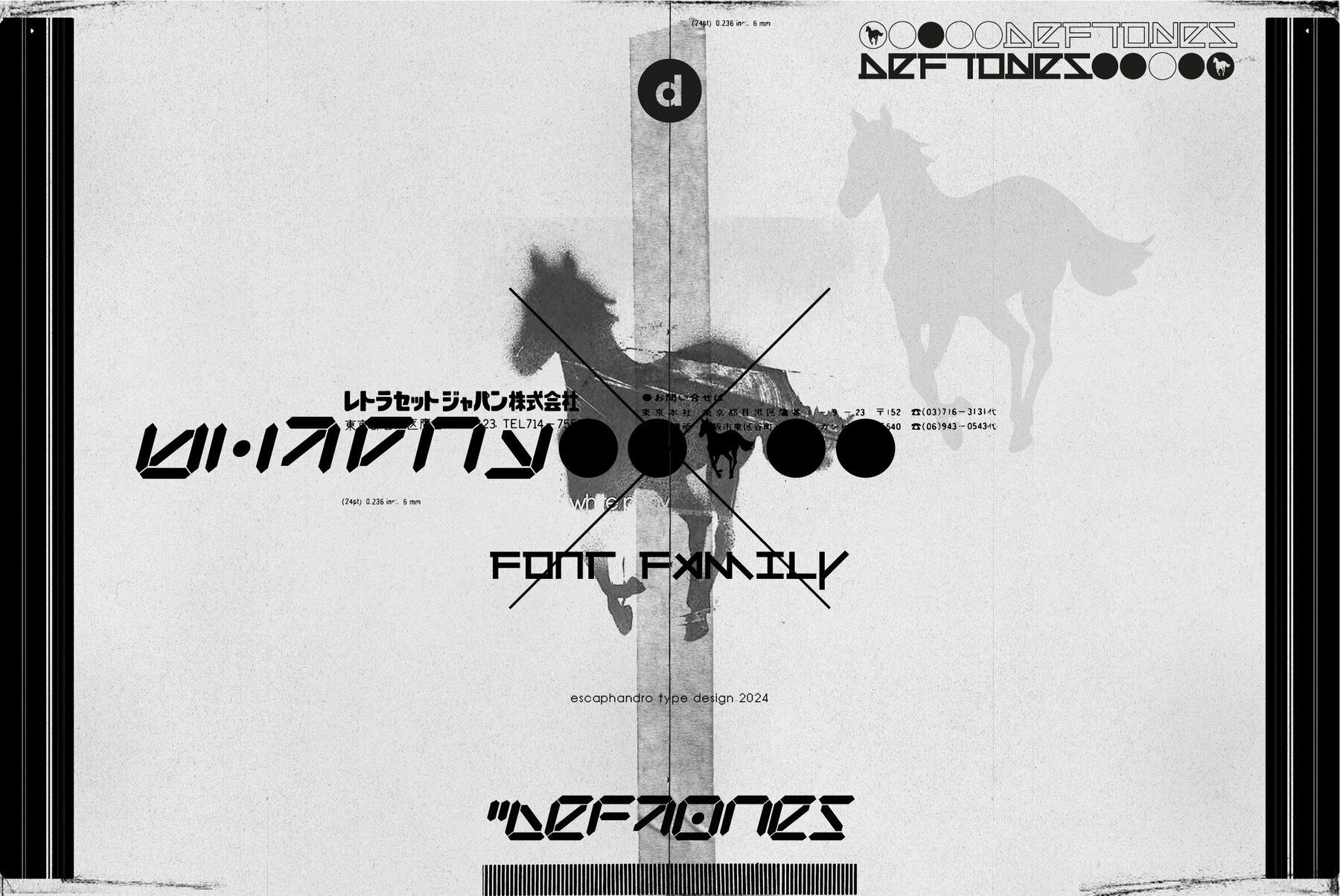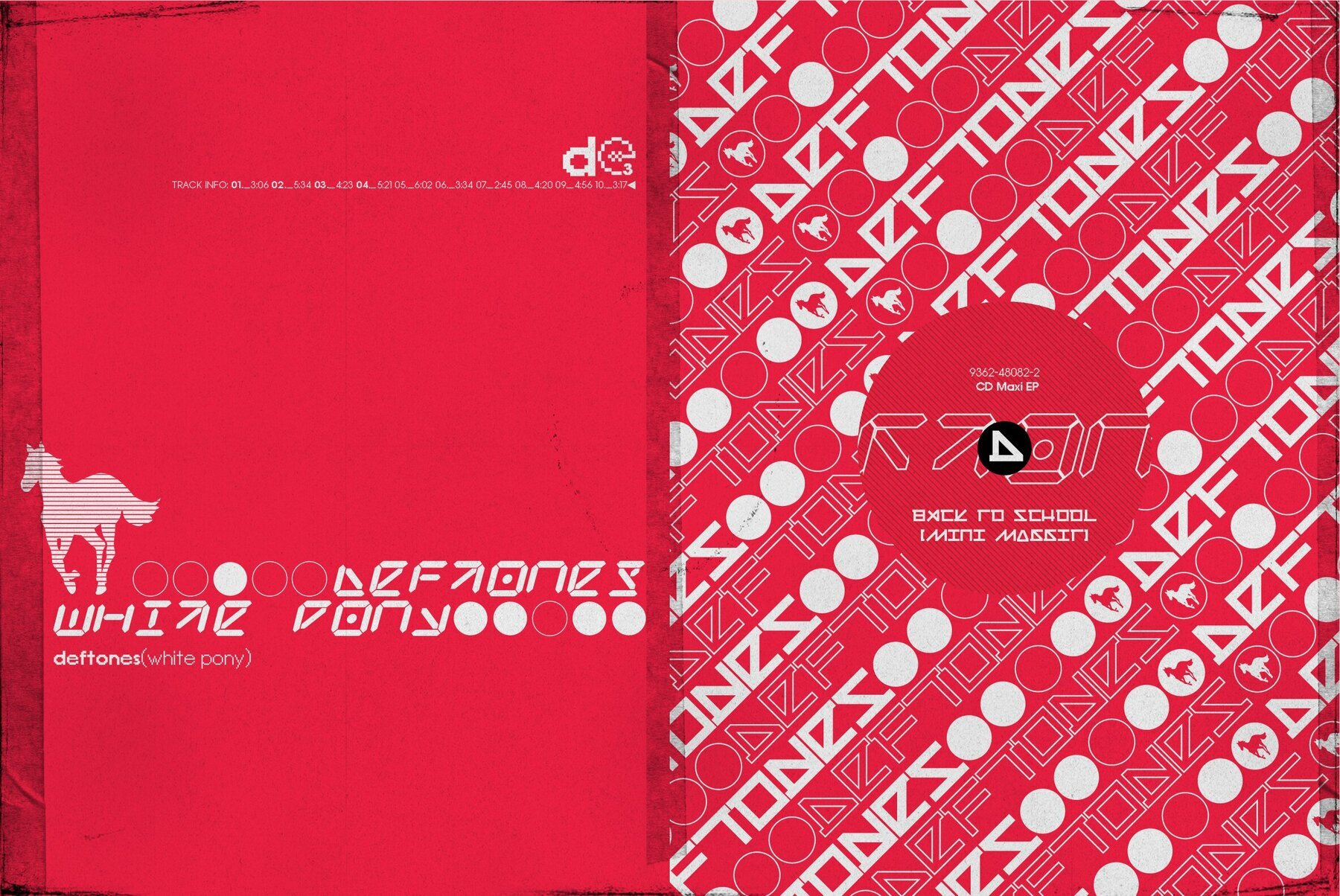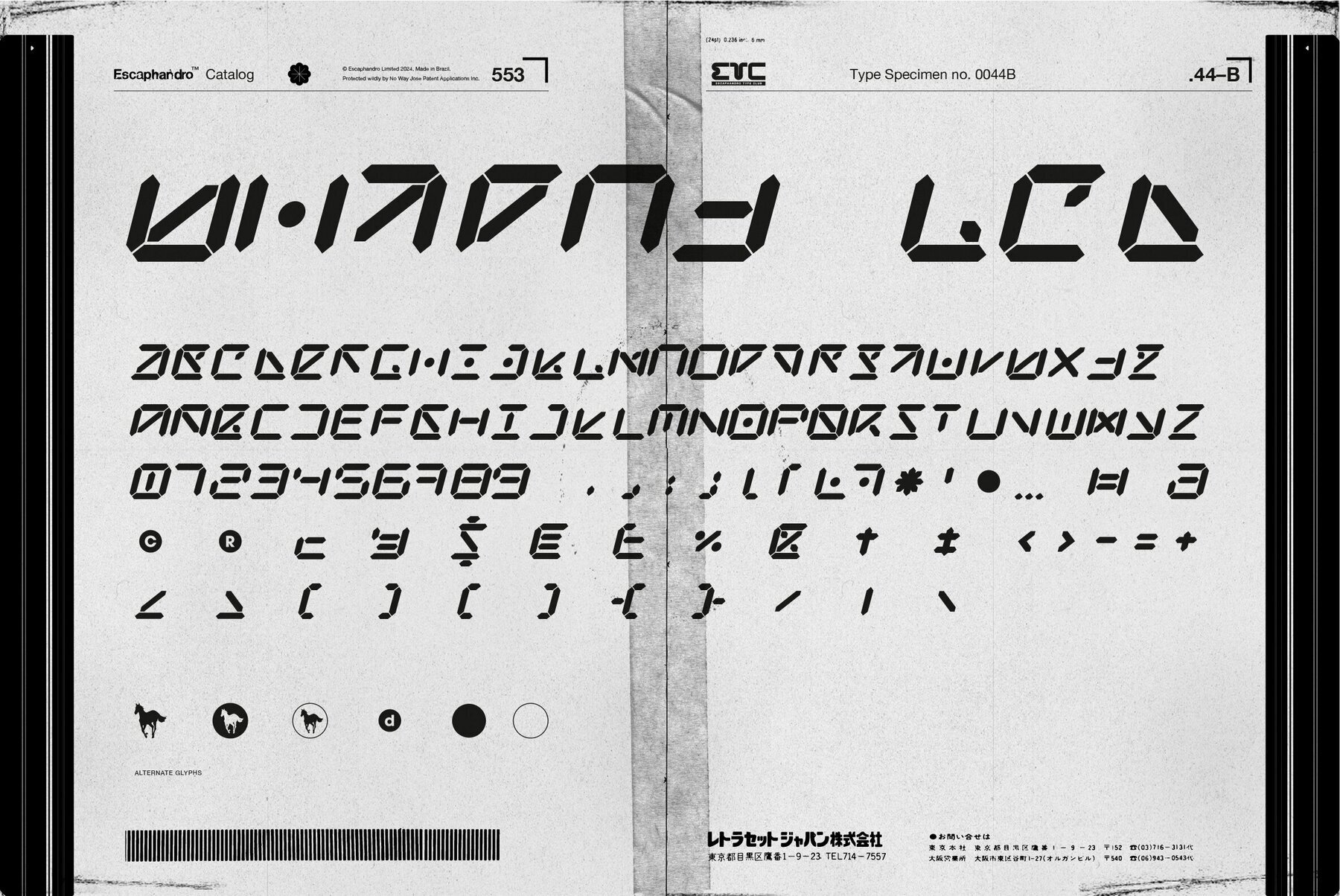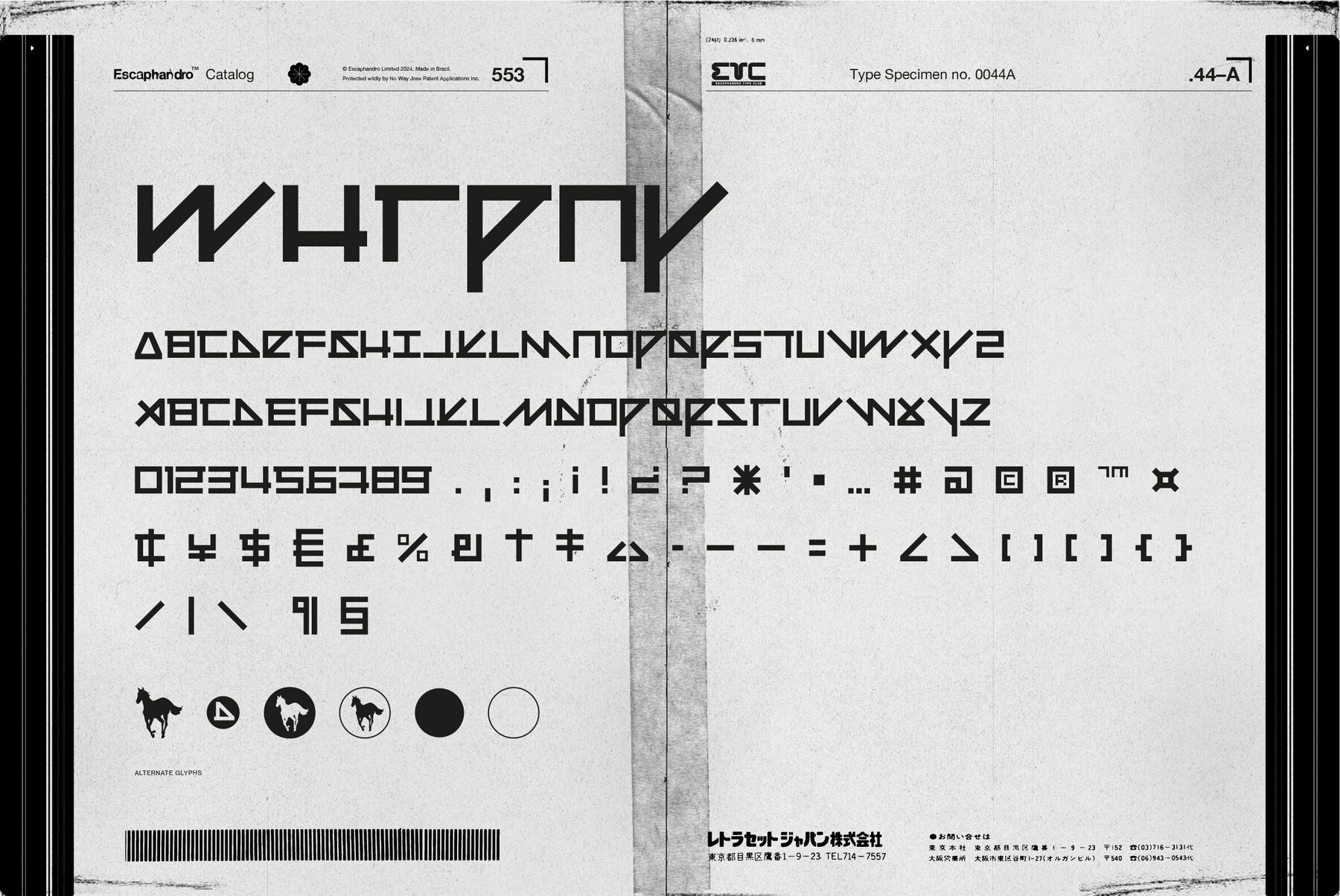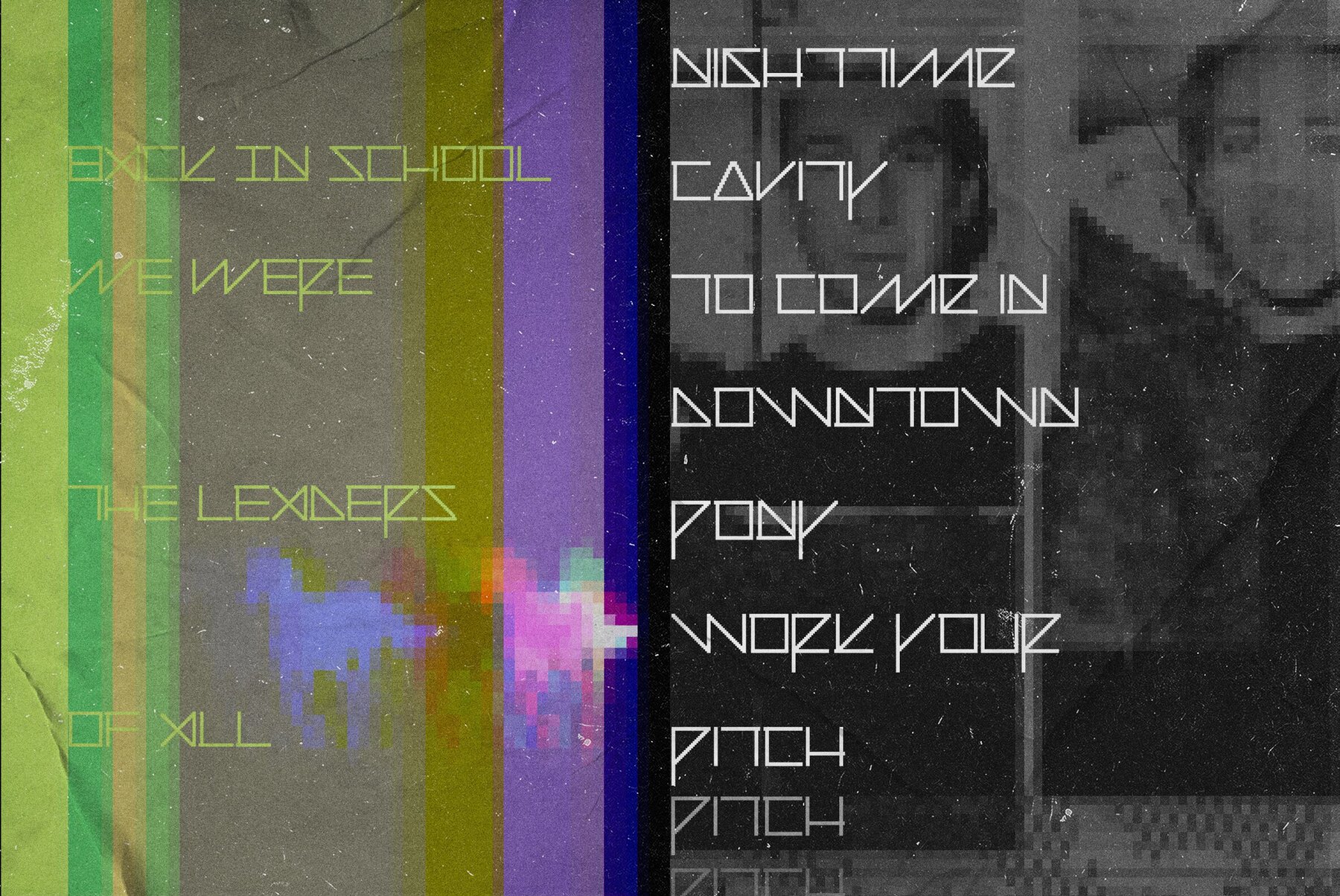
WHTPNY Font
WHTPNY Regular
WHTPNY LCD
WHTPNY PX
WHTPNY Regular is one of my first type designs, beginning in 2001. More than a music fan tribute to the Deftones' masterpiece album "White Pony", this type collection is a homage to the visual side and enduring influence of the band's aesthetics, a really inspiring creative partnership with art director Frank Maddocks that (truth be told) still resonates with me after all these years. Cut from 2 band logos designed for the album, WHTPNY Regular and WHTPNY LCD are the kind of attempt that seem very logical, yet challenging, to fill the gaps and build a functional character set from a few uppercase letters. The PX (pixel) version is a bonus, designed from the same structure of the regular weight. The combination of analog collage and ambient graphics, along with a y2k lush polish really matches the music and proved to be a timeless classic. It was really fun to translate that into the full typefaces presented here.